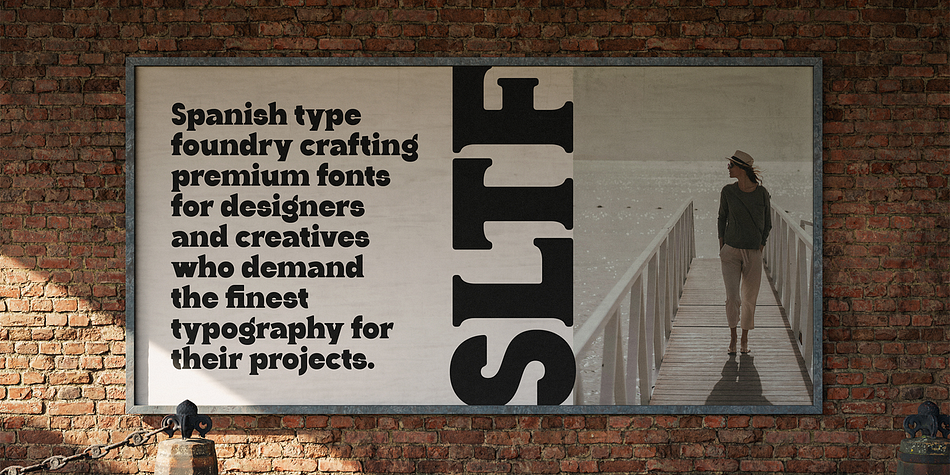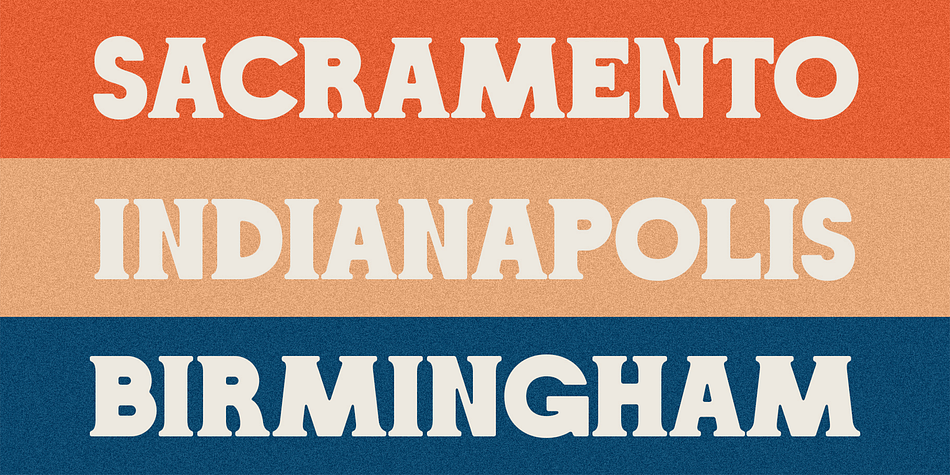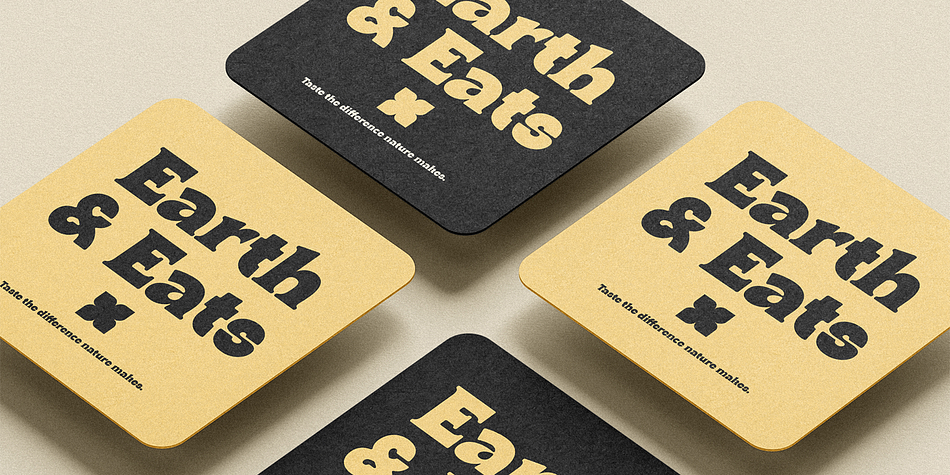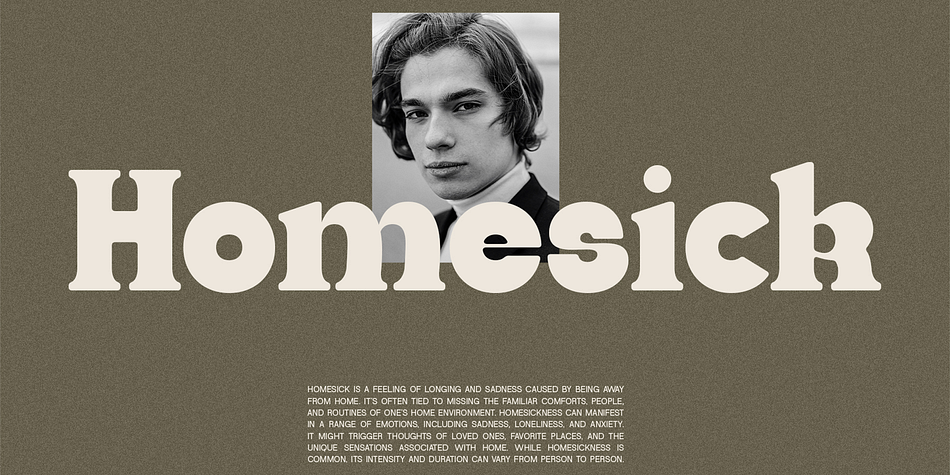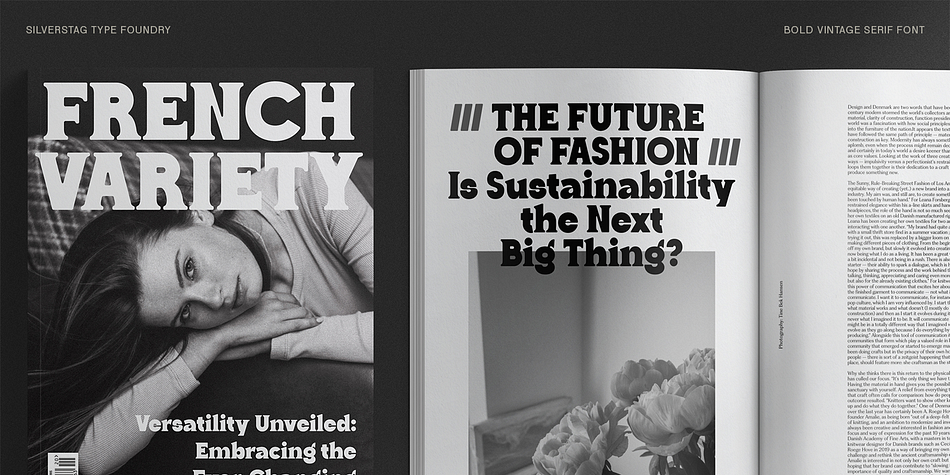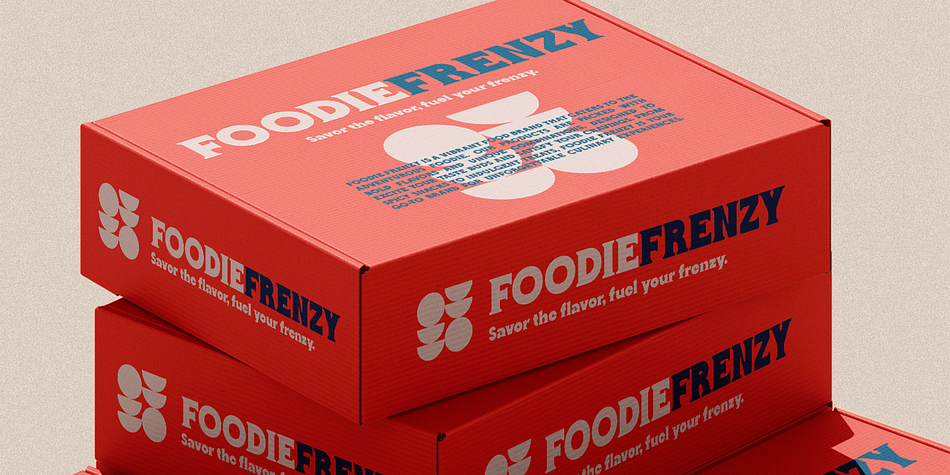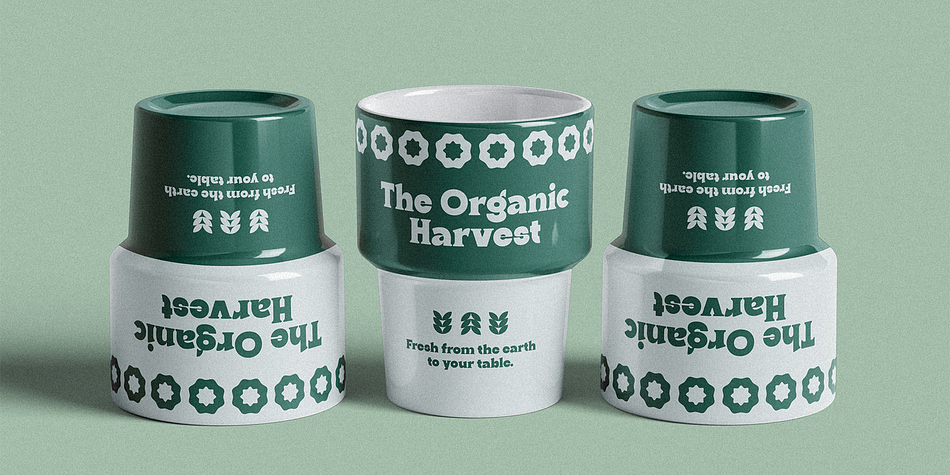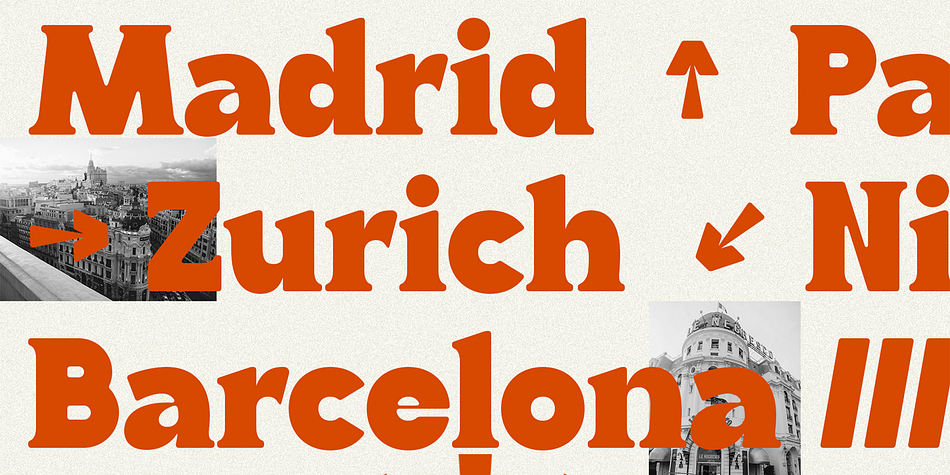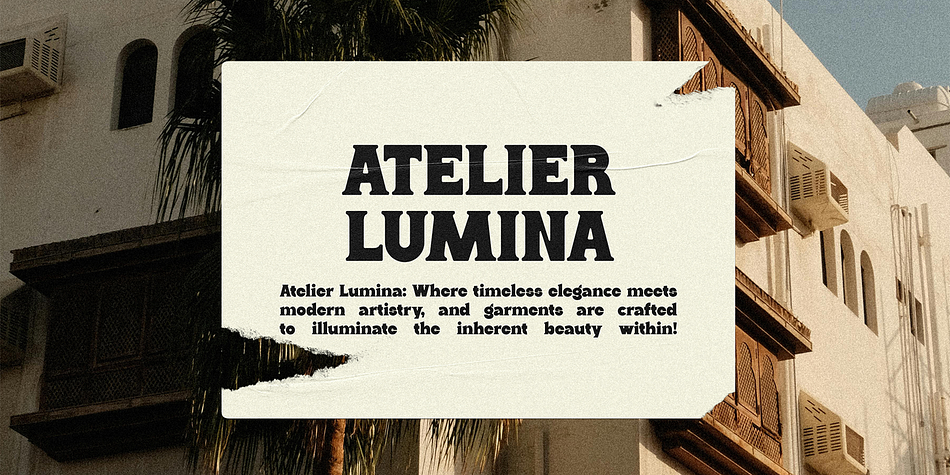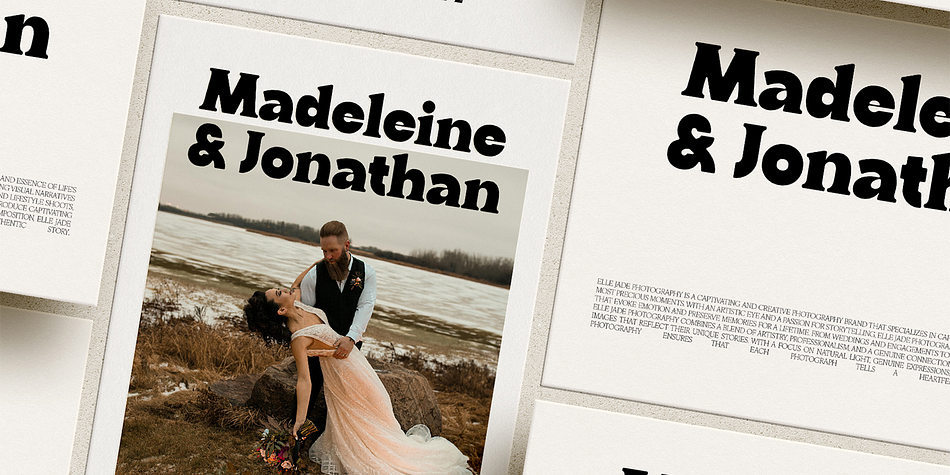
Introducing Ranfit, a typeface that seamlessly blends the charm of vintage typography with a contemporary edge. This bold and funky serif commands attention with its strong presence and unique personality, making it perfect for projects that demand a touch of nostalgia and a whole lot of style.
Inspired by classic signage and retro packaging, Ranfit captures the essence of a bygone era while remaining fresh and relevant for modern design applications. Its chunky serifs, playful curves, and distinctive letterforms create a visual feast that’s both familiar and unexpected.
Key Features:
Versatile: Ranfit is equally at home in headlines, logos, packaging, posters, and editorial designs.
Expressive: With its bold personality, Ranfit adds a touch of character and charm to any project.
Unique: Distinctive letterforms and alternates set Ranfit apart from typical vintage-inspired fonts.
Well-Crafted: Meticulously designed with attention to detail, ensuring readability and visual appeal.
Where Ranfit Shines:
Branding & Logos: Create memorable and impactful brand identities that stand out from the crowd.
Packaging Design: Give your products a touch of vintage flair with eye-catching labels and packaging.
Editorial Design: Add a touch of personality to magazine layouts, headlines, and article titles.
Poster & Display: Craft bold and attention-grabbing posters, signage, and advertising materials. Embrace the Past, Embrace the Present
Ranfit is more than just a font; it’s a celebration of timeless design with a modern twist. Whether you’re aiming for a retro aesthetic or a contemporary look with a hint of nostalgia, Ranfit delivers a unique and captivating typographic experience.